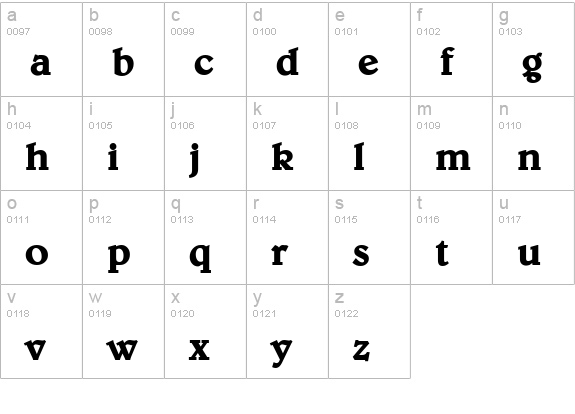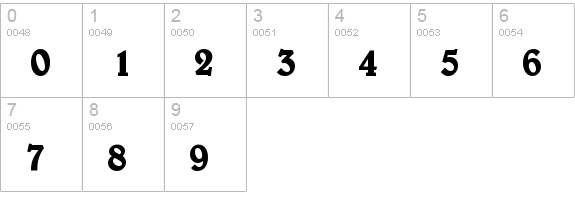
Blew Bold is a strong, high-contrast variant in the Blew typeface family \xE2\x80\x94 well suited to headlines, attention-grabbing titles, and strong calls-to-action.
Introducing Blew Bold font, a sleek and modern typeface that exudes confidence and sophistication. Its bold and striking design makes it perfect for headlines, logos, posters, and more. With its clean lines and sharp edges, Blew Bold commands attention and adds a touch of elegance to any design project. But the best part? Blew Bold is completely free to download at FontsMarket.com. That's right, you can elevate your creations with this stunning font without spending a penny. So why wait? Download Blew Bold today and make your designs stand out from the crowd.